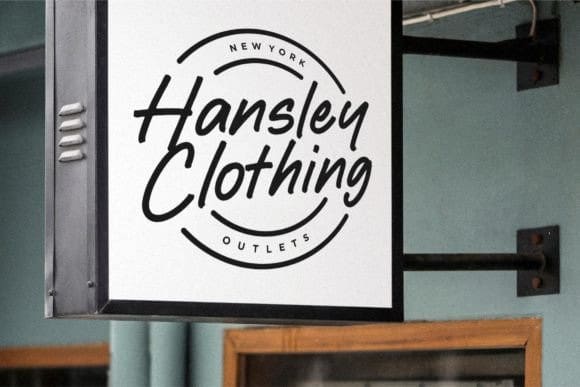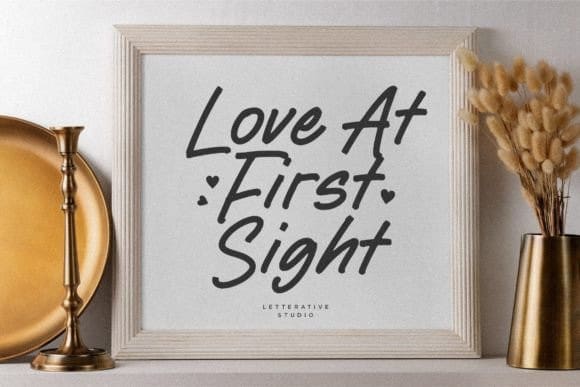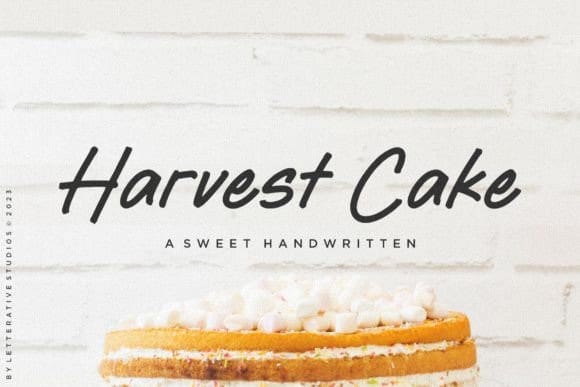
Harvest Cake Font
Harvest Cake Font is a sweet and delicate handwritten font. Whether you’re using it for crafts, digital design, presentations, or making greeting cards, this font has the potential to become your favorite go-to font, no matter the project idea!